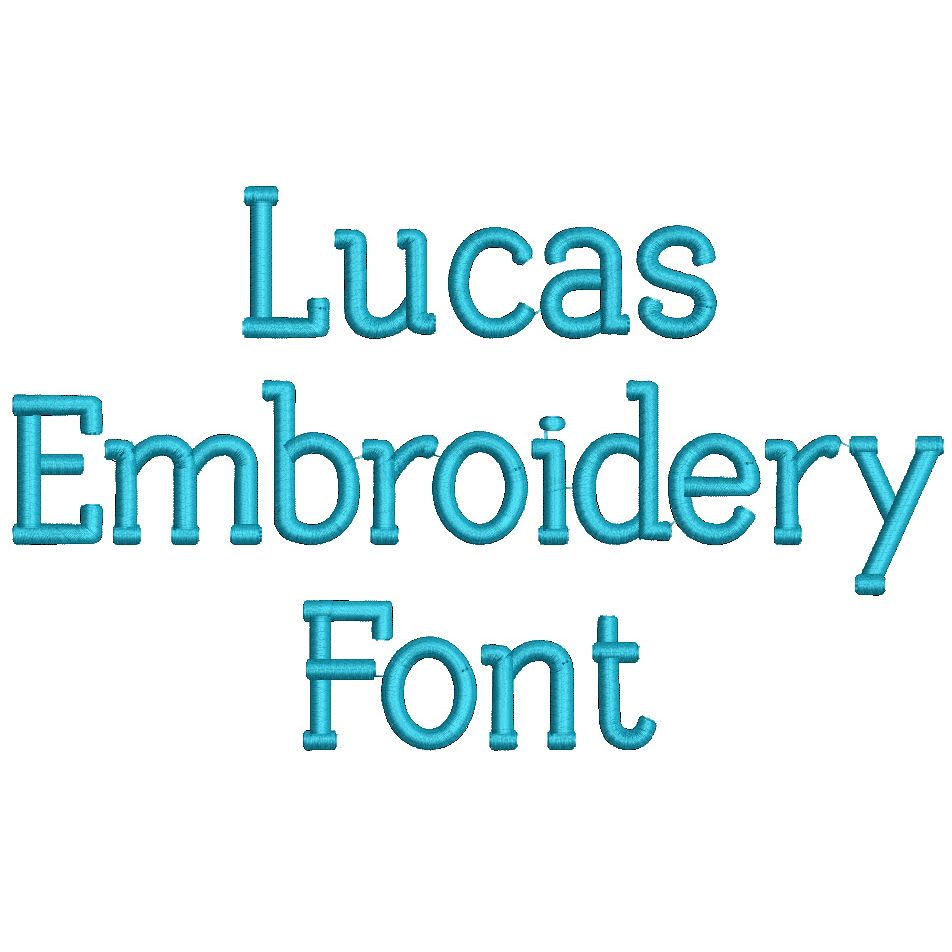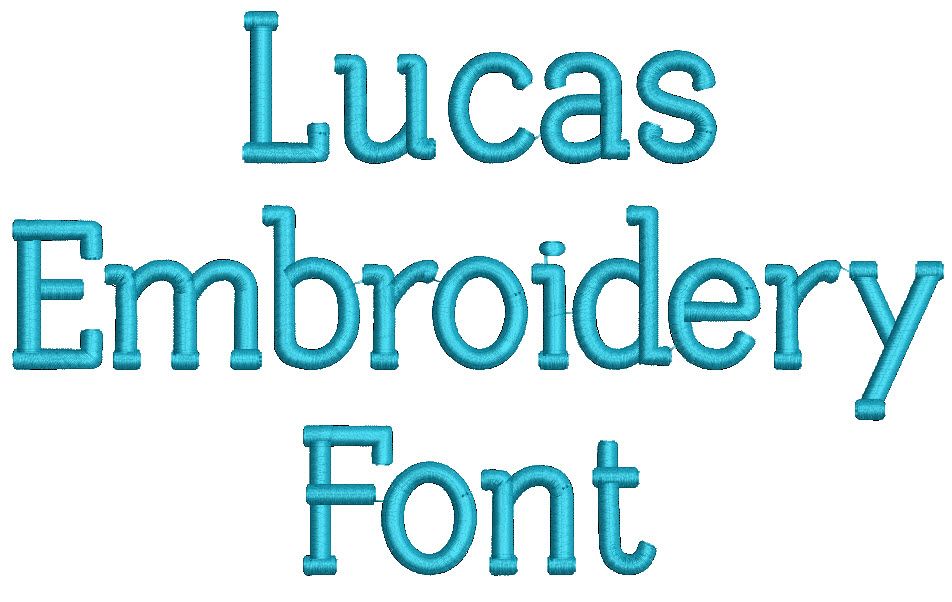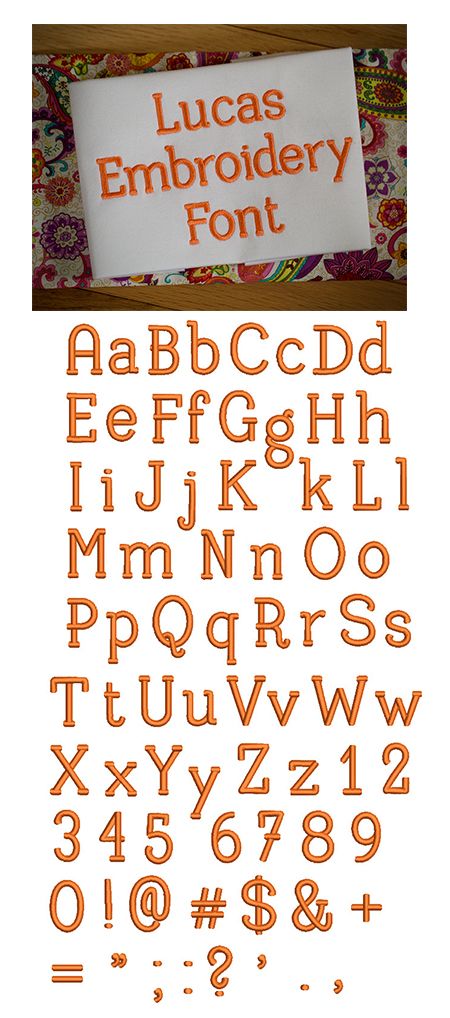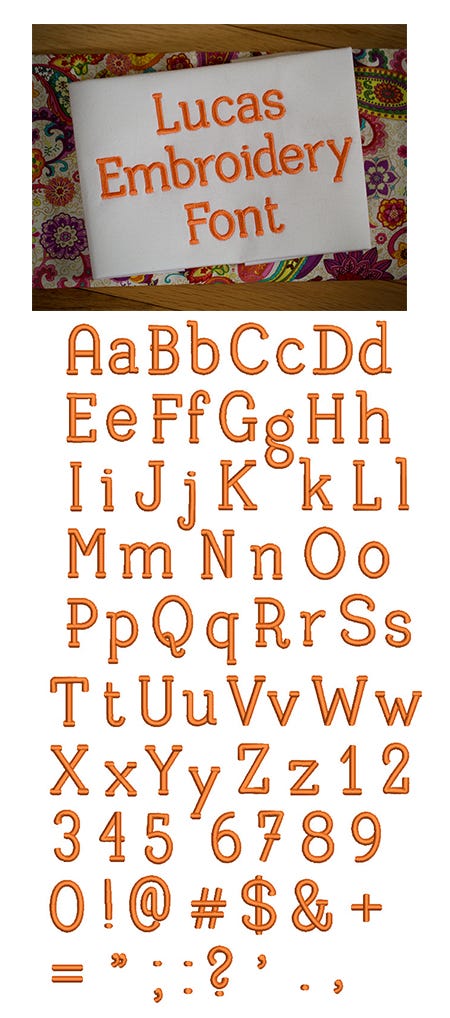
Cute and simple typewriter style font. Easy to read and great for wide variety of projects! All of our font alphabets are 100% manually digitized to bring you maximum stitch quality.